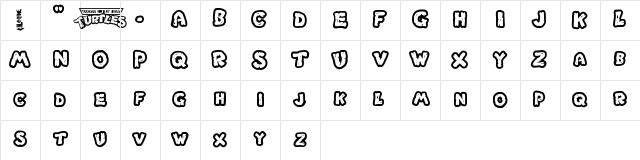
Chlorinar Regular Font Preview
Chlorinar Regular
Chlorinar Regular Font Details
Design Context for Chlorinar Typeface
Chlorinar is a composed and adaptable typeface that performs quietly and consistently across a wide range of design contexts.
Pro Tip: Use Chlorinar in both headline and body roles to test its range before committing to a single application.